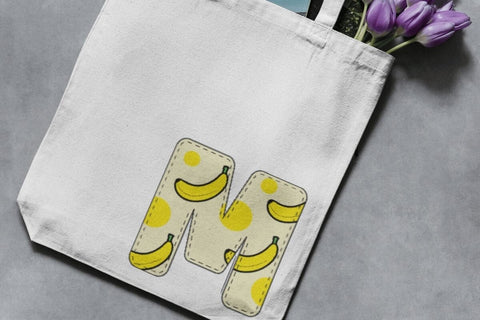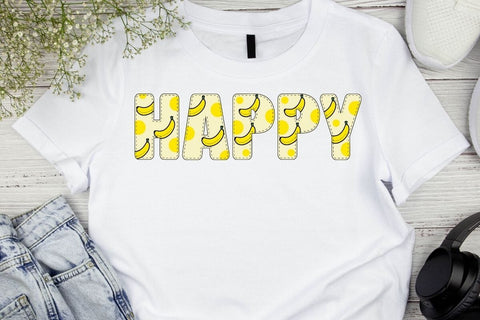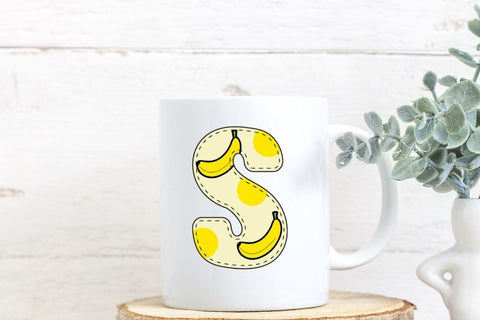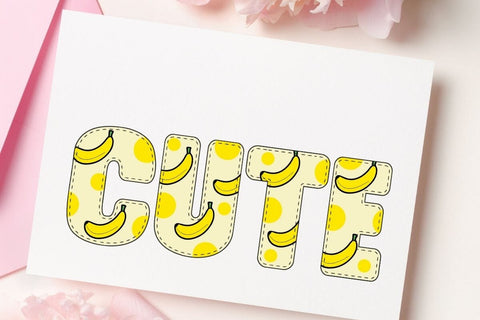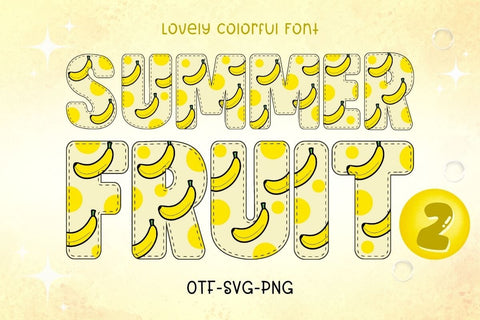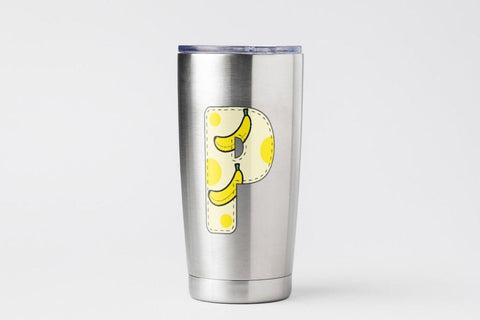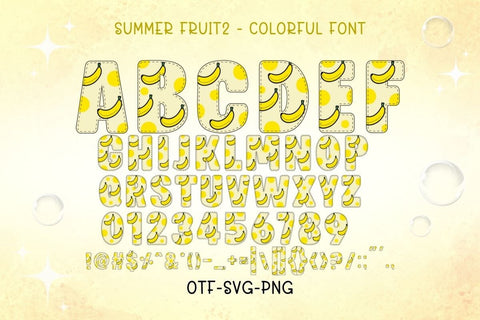
Summer Fruit 2 - Color Font
Summer Fruit 2 is a charming font featuring bright, vibrant colors and adorable banana cartoons as patterns on the characters, creating a unique and eye-catching design. This font is perfect for all your summer fruit-themed projects, enabling you to design products such as banners, content, mugs, cards, shirts, stationery, social media posts, and much more!